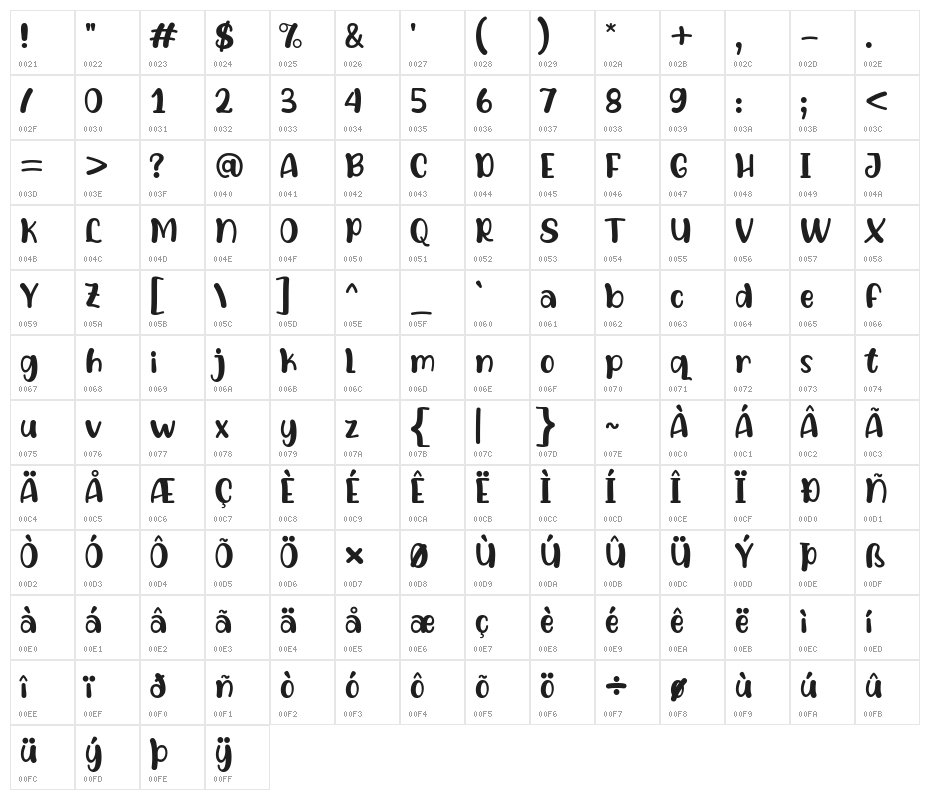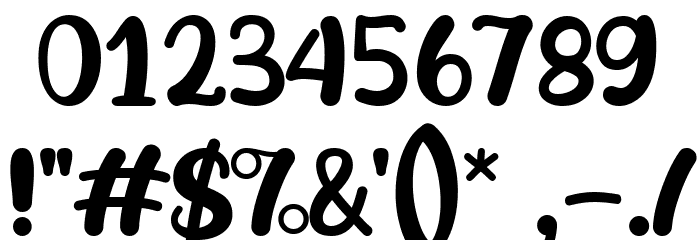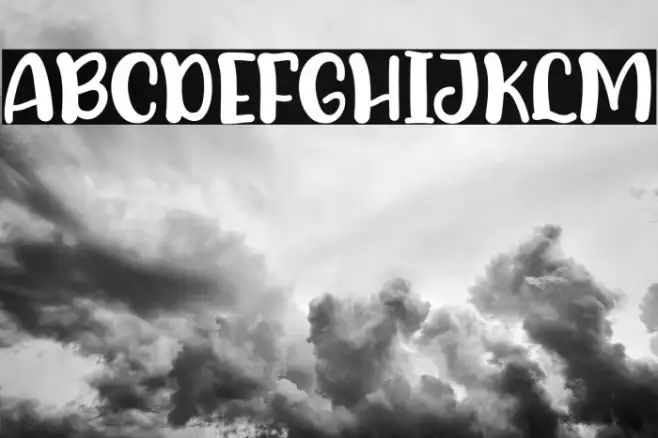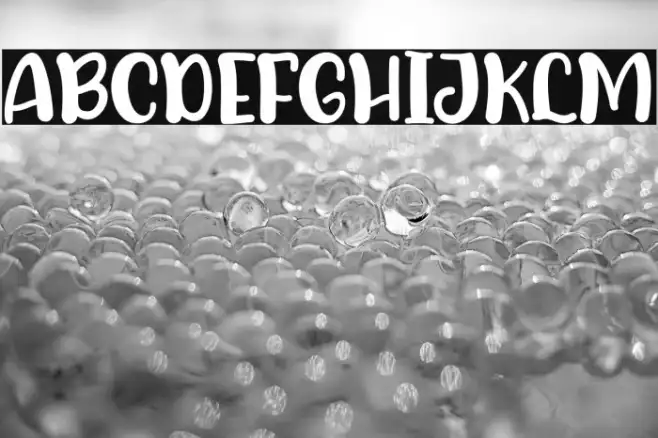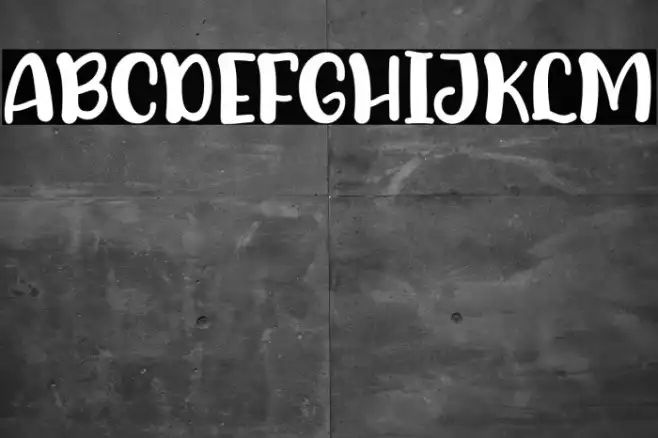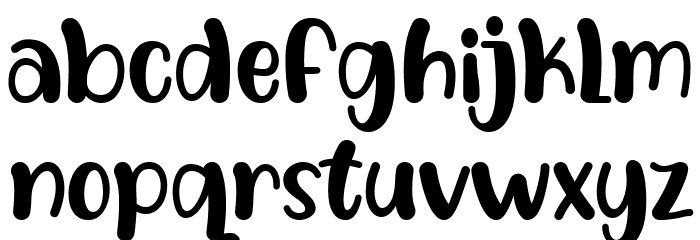
Lova Bear Font
This playful and bold font features a handwritten style with a whimsical touch. The letters are rounded and slightly irregular, giving it a friendly and approachable appearance. The uppercase and lowercase letters maintain a consistent style, with some characters having unique flourishes that add to the font's charm. The numbers and special characters are equally bold and maintain the playful aesthetic, making them suitable for a variety of creative projects. The overall design is cohesive, with a consistent stroke width that enhances readability while maintaining its decorative appeal.